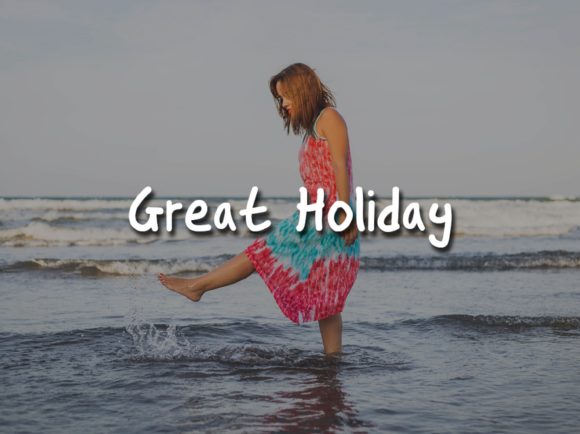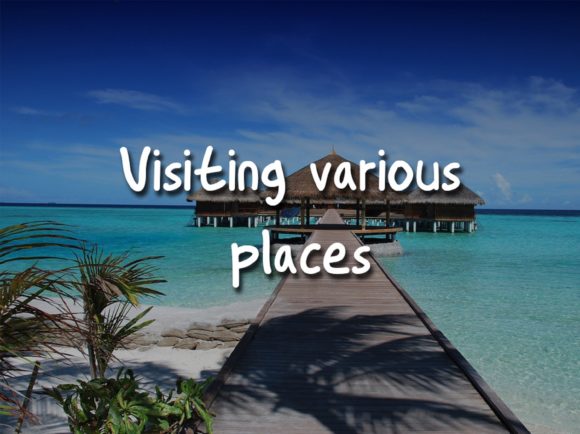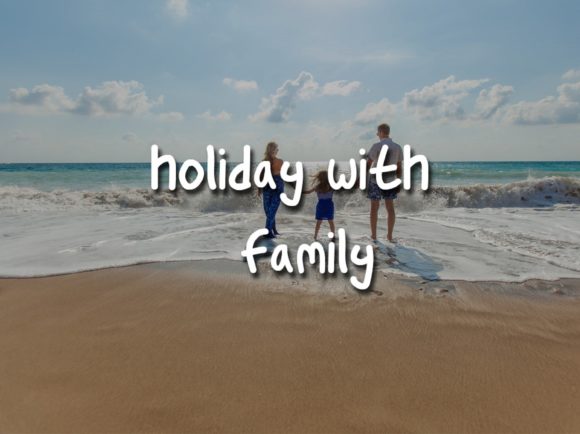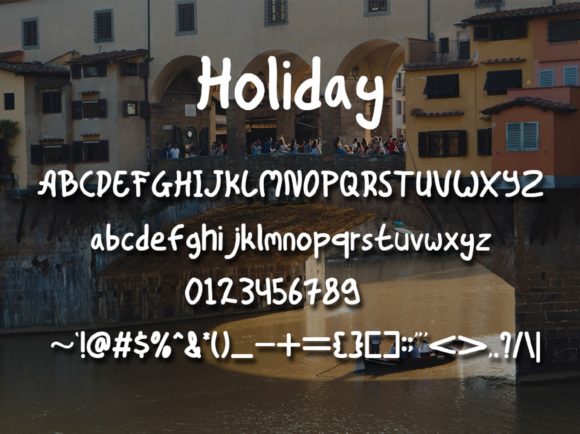
Holiday Font
About Holiday Font
Holiday is a awesome script font. No matter the topic, this font will be an incredibly asset to your fonts’ library, as it has the potential to elevate any creation.